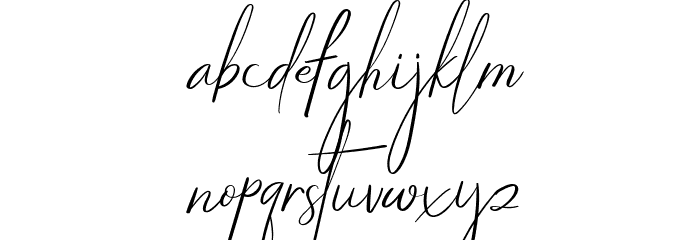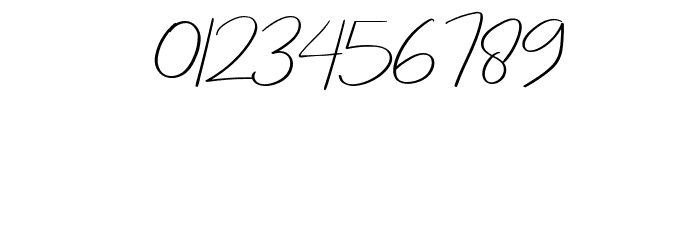
Starlights Italic Font
This font features a flowing, elegant script style with a distinctly italicized slant, giving it a sense of motion and grace. The characters are thin and elongated, with a consistent stroke width that maintains a delicate appearance. The uppercase letters are tall and slightly exaggerated, while the lowercase letters are more compact, yet still maintain the overall fluidity of the design. The numerals are consistent with the style, featuring the same elegant curves and thin lines. This font is ideal for projects that require a touch of sophistication and elegance, such as wedding invitations, formal event programs, or high-end branding materials.
An elegant, flowing script font with an italicized slant and thin, elongated characters.
- Proposed Projects: Wedding invitations, formal event programs, high-end branding materials.
- Category: Script
- Weight: Light
- Overall Style: Elegant, Sophisticated
- Use Case: Headlines, Invitations, Branding